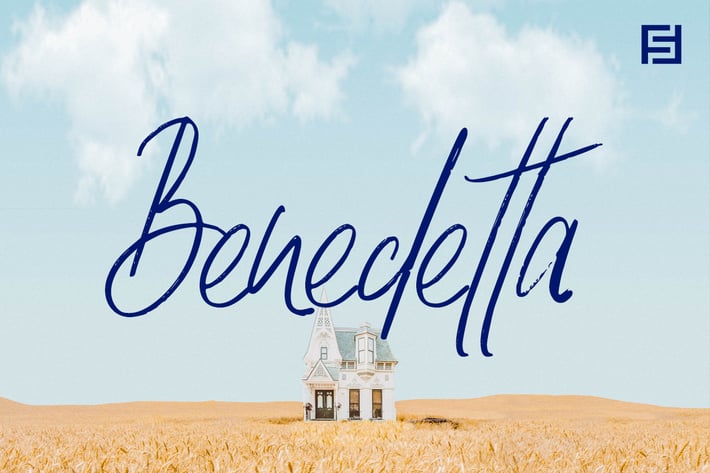
Benedetta - Lovely & Beautiful Handwritten Font
Benedetta is a beautiful and lovely handwritten font for luxury / signature / branding / logotype / personal invites / greeting cards / promotional graphics. Benedetta is completely handmade with perfection and aesthetics at its level best.
Advanced Kerning & Essential Ligatures:
We have performed advanced, in-depth kerning to make sure the font looks amazing on all possible letter combinations.